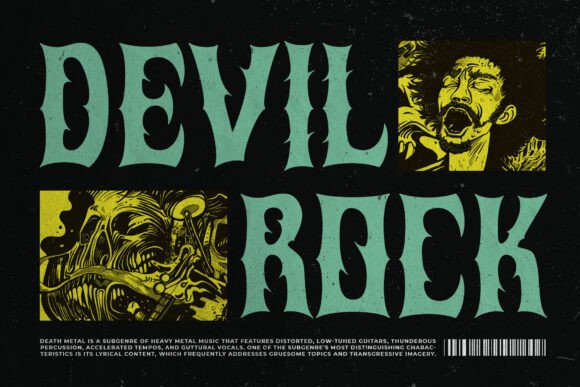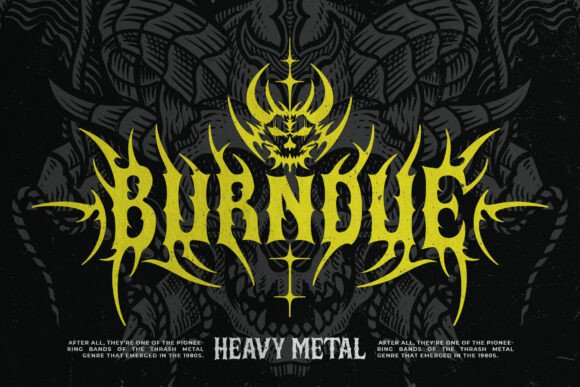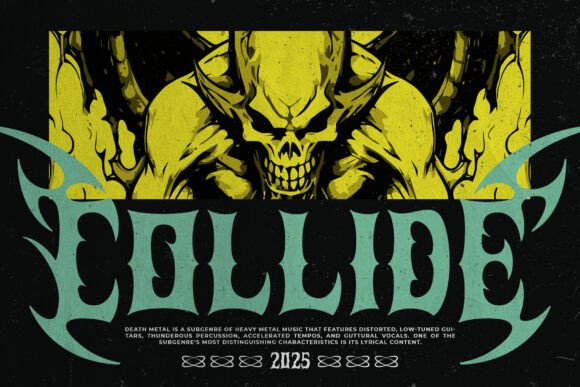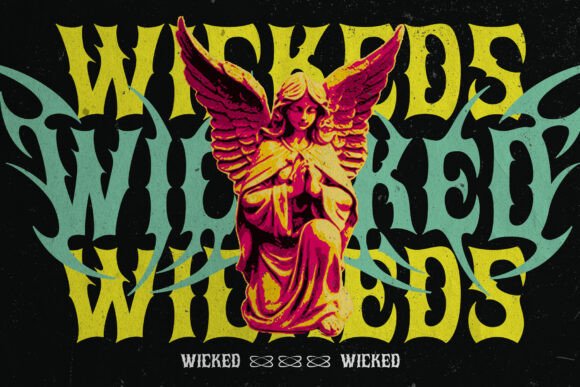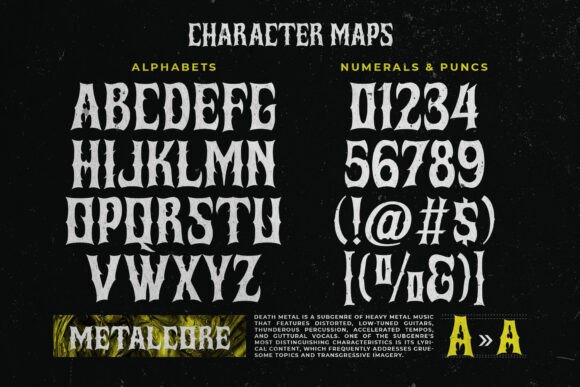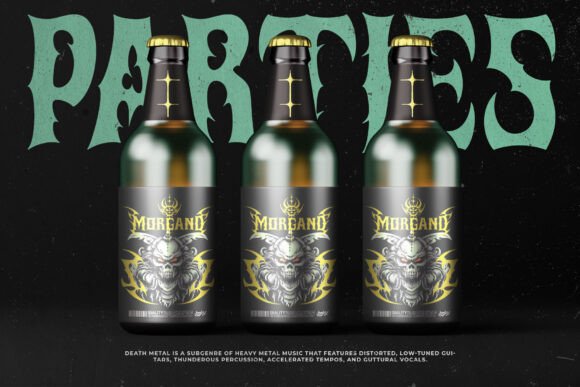
Unleash Your Inner Metalhead: The Power of Grund Burn Font
You’re in the midst of a creative storm, pouring your heart and soul into a design project that screams metal. The music is pumping, the inspiration is flowing, and you’re determined to create something that embodies the raw energy of black metal. In this moment, you need a typeface that’s just as fierce and unapologetic as the music that drives you.
Enter Grund Burn Font, a typography powerhouse designed to unleash your design’s full fury. With its razor-sharp thorn elements and aggressive curves, Grund Burn brings an intense visual punch while maintaining legibility. This unique balance of chaos and clarity makes it the perfect choice for designers who want to infuse their work with raw power and emotion.
- Font Family: Grund Burn Font is a unique, distressed font designed to evoke a sense of ruggedness and wear.
- Unique Characteristics: This font features a distressed, hand-drawn look with subtle imperfections and texture, giving it a unique, organic feel.
Designer Review: Grund Burn Font
Overall, I’m quite impressed with the Grund Burn Font. The unique, distressed aesthetic ✨ adds a touch of ruggedness and character to any design, making it perfect for outdoor and adventure-themed projects. The font’s versatility ✨ also allows it to be used in various contexts, from headlines to body text.
- The font’s distressed texture adds depth and visual interest ✨
- The font’s versatility makes it suitable for a wide range of projects ✨
- The font’s unique aesthetic is sure to stand out in any design ✨
- The font may be too bold for some designs, potentially overwhelming the content ⚠️
- The font’s distressed texture may not be suitable for projects requiring a more polished or sophisticated look ⚠️
While the Grund Burn Font has some limitations, its unique aesthetic and versatility make it a valuable addition to any designer’s toolkit. With careful use, it can add a touch of rugged charm to any design, making it perfect for outdoor and adventure-themed projects.
Grund Burn Font is ideal for creating bold, edgy designs. Use it for:
– Headlines and titles
– Social media graphics and advertisements
– Any design that requires a bold, attention-grabbing font.